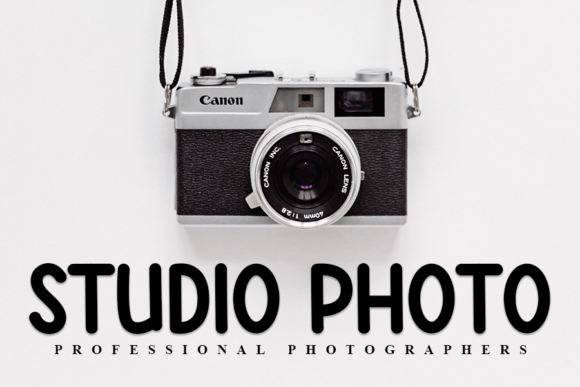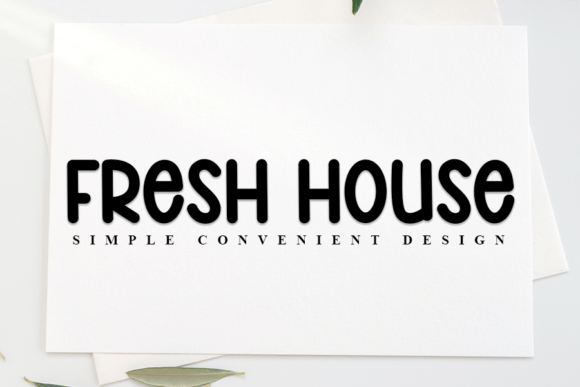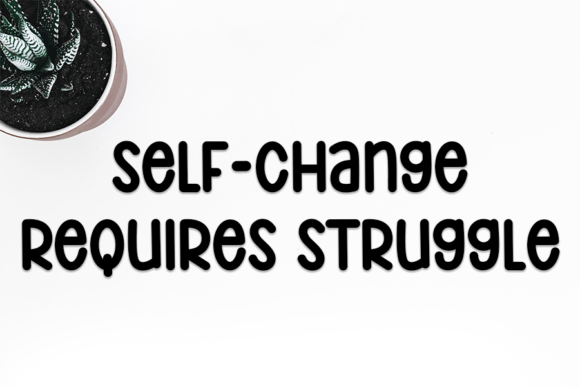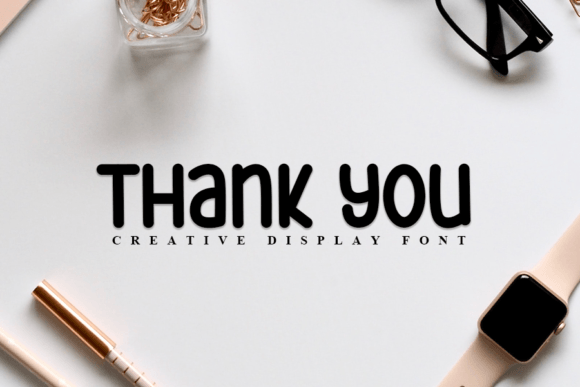
Introducing Background Font: The Ultimate Display Font for Modern Design
Are you tired of using the same old fonts for your designs? Look no further! Background Font is here to revolutionize your creative projects with its cool and modern display style. Whether you’re a designer, crafter, or simply someone who loves to create, this font is about to become your new go-to.
What is Background Font?
Background Font is a stunning display font that is perfect for a wide range of applications. Its unique and modern design makes it ideal for crafts, digital design, presentations, and even creating greeting cards. The font’s versatility is one of its standout features, allowing you to use it for various occasions and projects.
Key Features of Background Font
- Modern Design: Background Font boasts a sleek and contemporary design that’s sure to grab attention.
- Versatility: Use it for crafts, digital design, presentations, greeting cards, and more.
- Easy to Read: Despite its modern and stylized design, the font remains clear and easy to read.
- High-Quality: Background Font is a high-quality font that will elevate your designs and make them stand out.
Uses of Background Font
So, how can you use Background Font to enhance your creative projects? Here are a few ideas to get you started:
- Crafts: Add a modern touch to your handmade crafts, such as scrapbooking, card making, or DIY jewelry.
- Digital Design: Use Background Font in your digital designs, including social media graphics, blog posts, and website headers.
- Presentations: Make your presentations more engaging and professional with this eye-catching font.
- Greeting Cards: Create stunning greeting cards for special occasions, such as birthdays, weddings, or holidays.
Why Choose Background Font?
With so many fonts available, why should you choose Background Font? Here are a few compelling reasons:
- Unique Design: Background Font’s modern design sets it apart from other fonts, ensuring your projects stand out.
- Time-Saving: With Background Font, you can create professional-looking designs quickly and easily.
Tips for Using Background Font
To get the most out of Background Font, here are a few tips to keep in mind:
- Experiment with Sizes: Play around with different font sizes to find the perfect balance for your design.
- Pair with Other Fonts: Combine Background Font with other fonts to create a unique and visually appealing design.
- Use it for Headings: Background Font is perfect for headings and titles, making it an excellent choice for presentations and digital designs.
In conclusion, Background Font is an exceptional display font that is sure to become your new favorite. Its modern design, versatility, and ease of use make it an excellent choice for designers, crafters, and anyone looking to elevate their creative projects. Whether you’re working on crafts, digital design, presentations, or greeting cards, Background Font is the perfect solution.